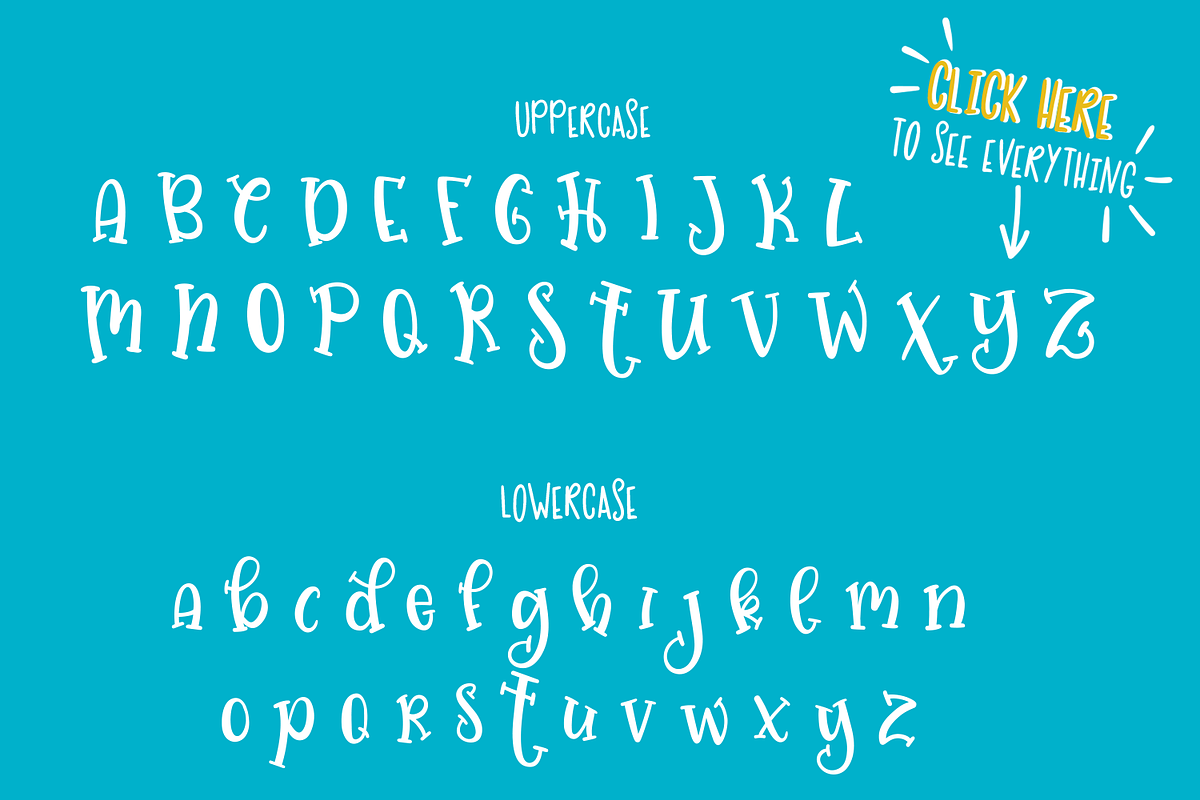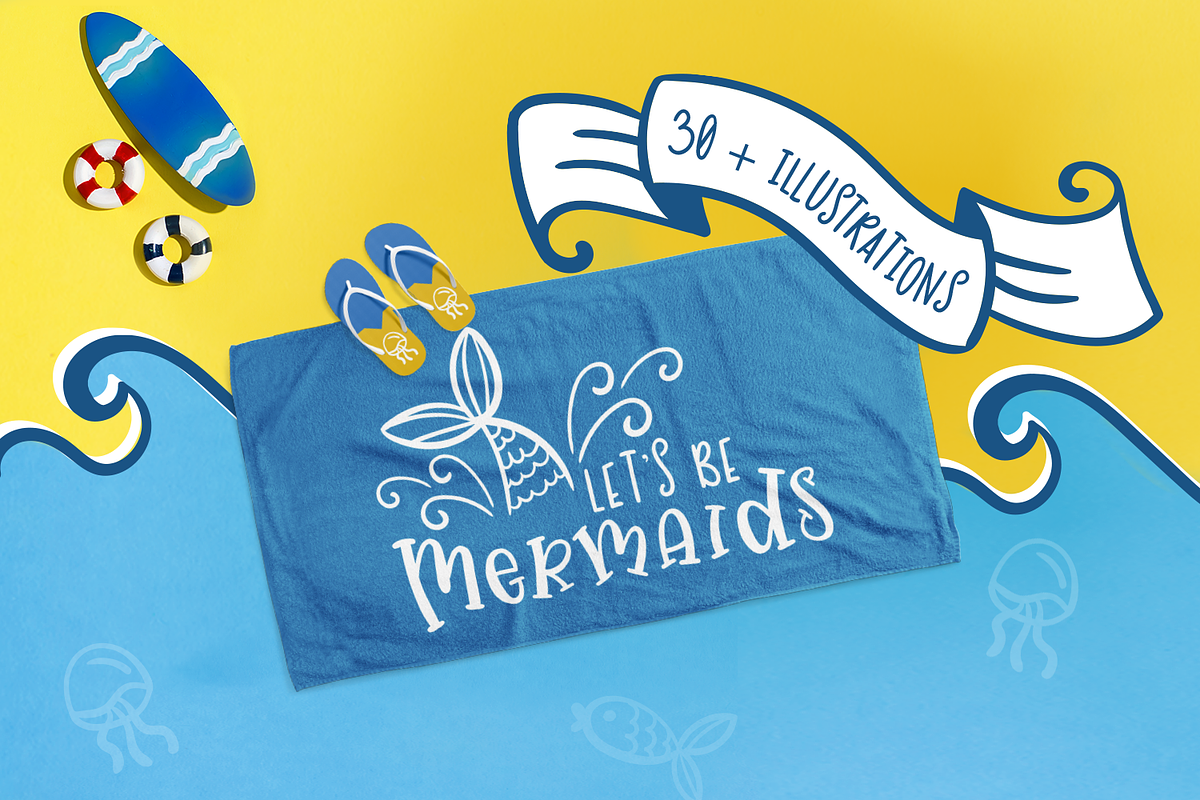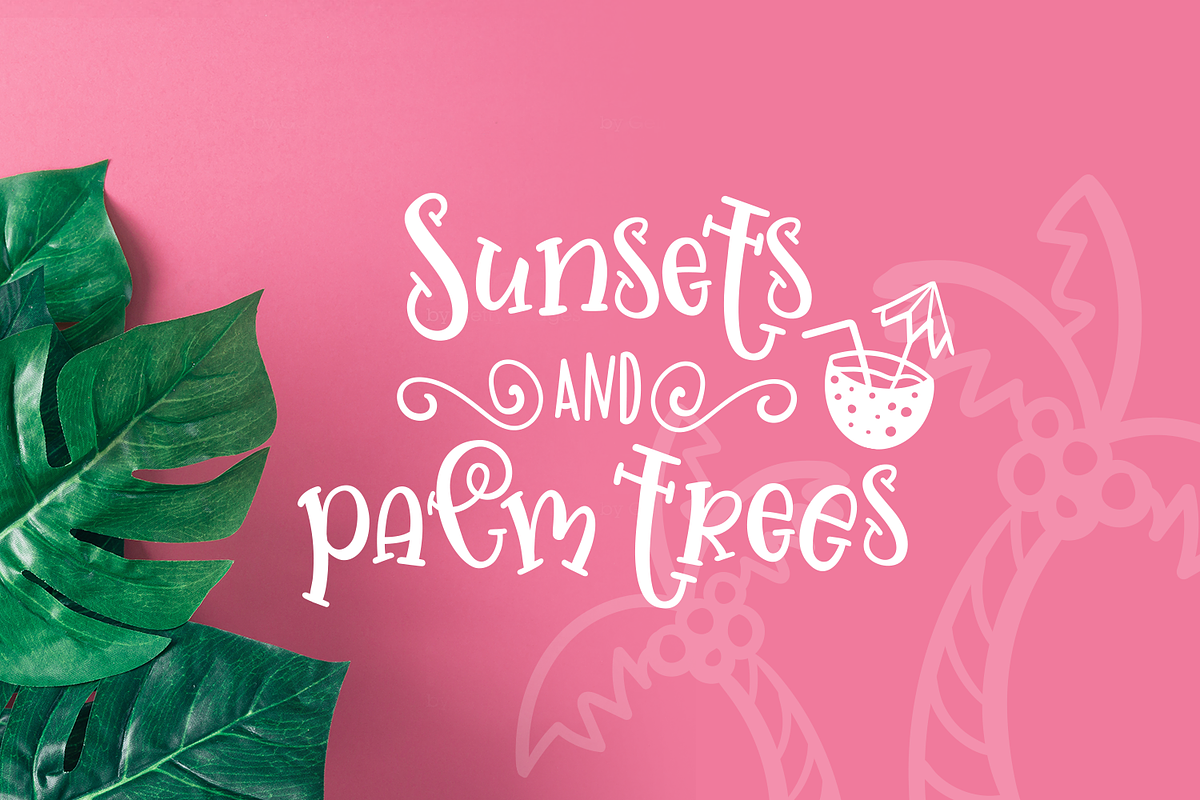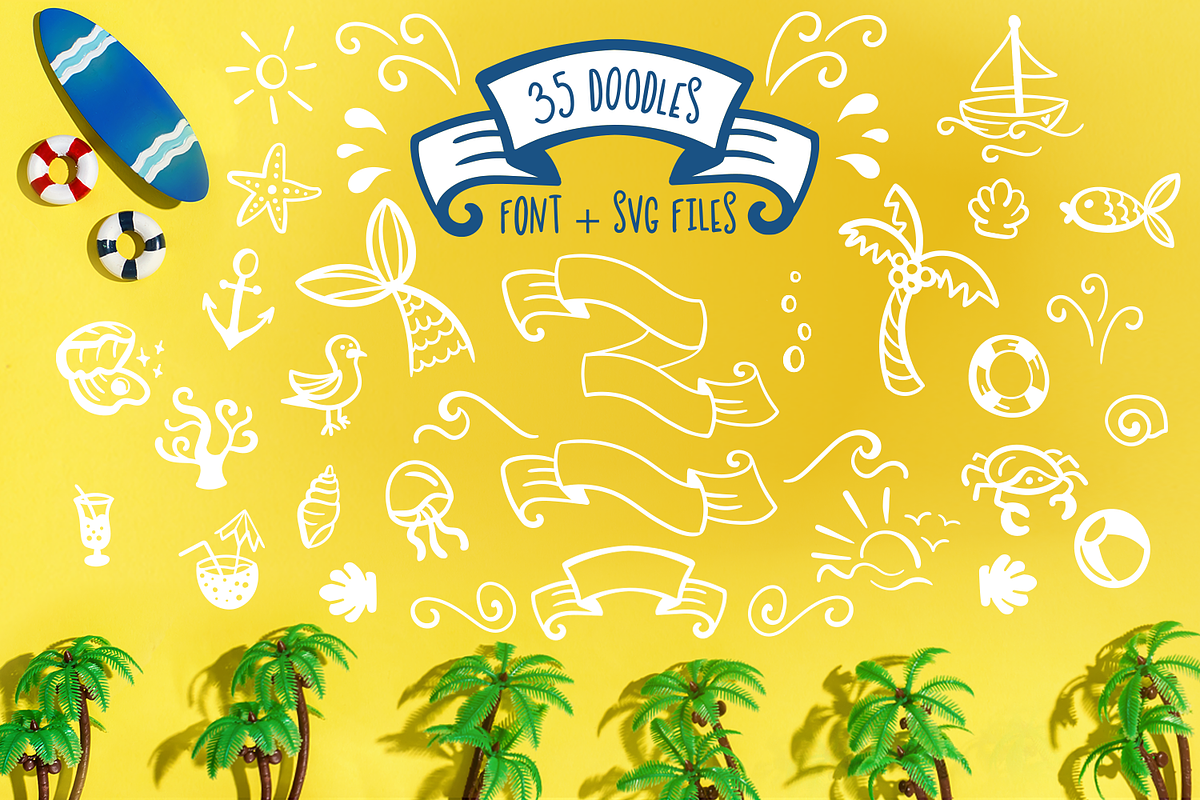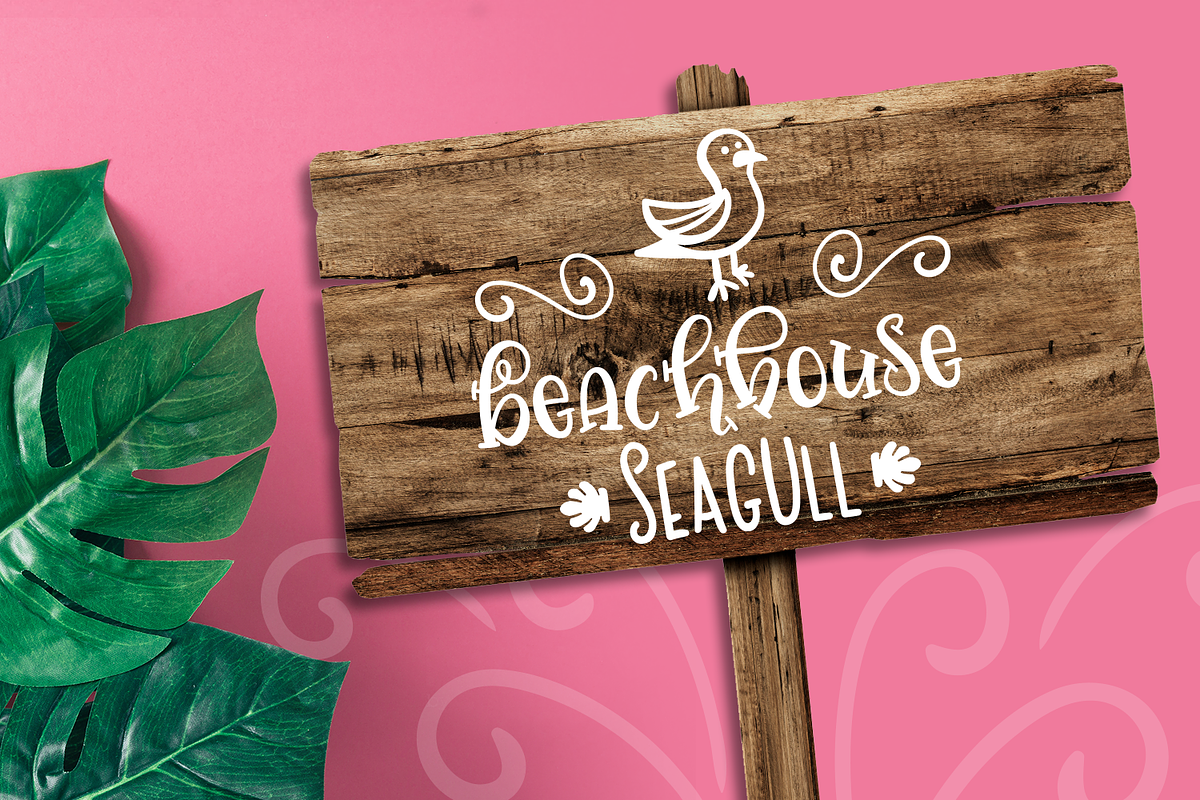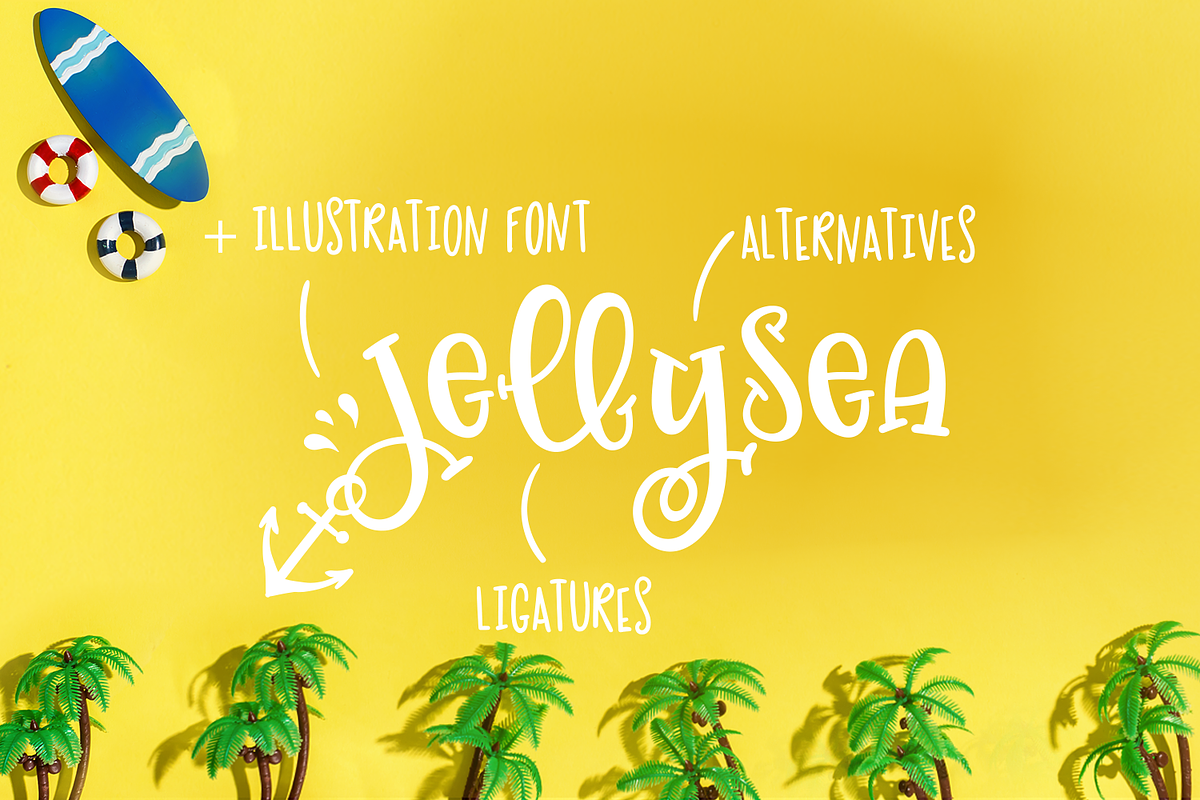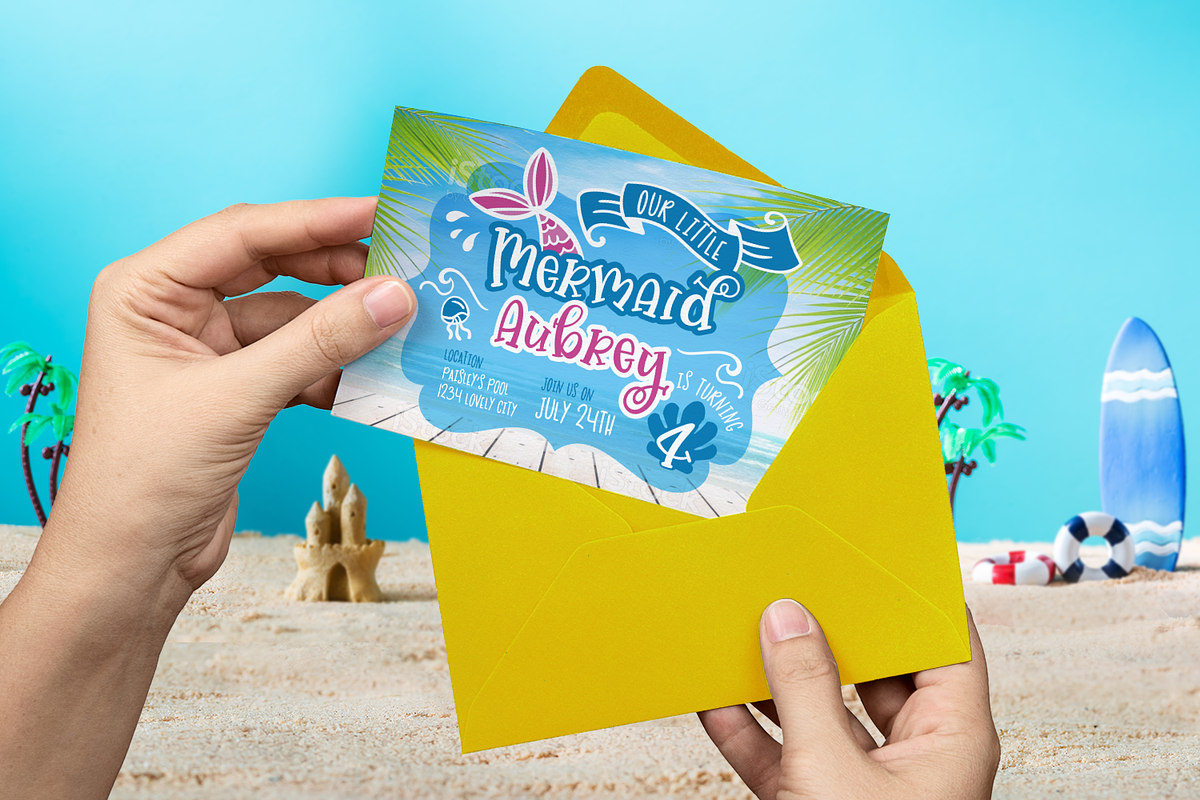
Jellysea - Font Duo + Summer Doodles
Introducing Jellysea, get ready for your summer projects with this beachy serif font. Jellysea is a cute whimsical font that can be used for summer designs, logo's, kids t-shirts, birthday cards, scrapbooking and ofcourse much more. It contains ligatures and alternatives to finish it off and give it a unique style. It also comes with 35 cute summer doodles that you can use in your design projects.
- It contains ligatures and alternatives to finish it off and give it a unique style.